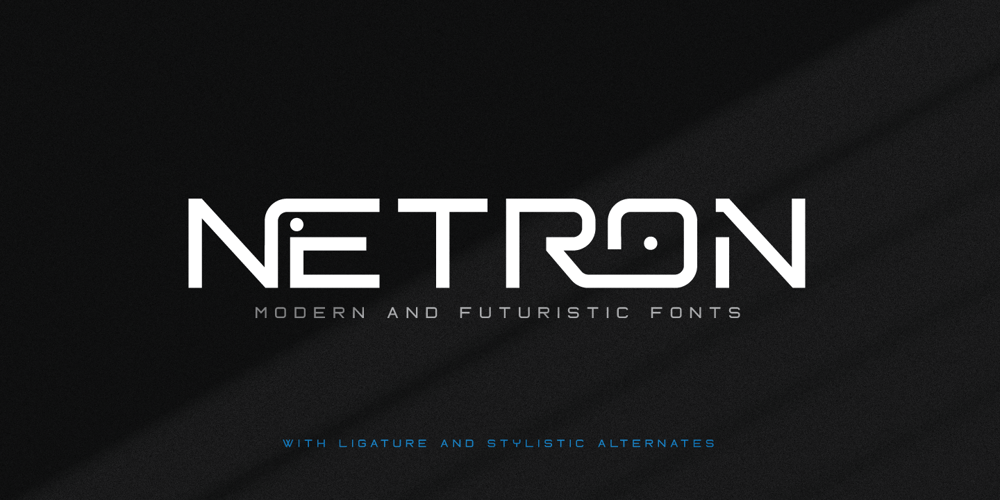
Netron Font Family was designed by Ari Juanda and published by Linecreative. Netron contains 1 styles and family package options. Netron is a futuristic typeface, designed with minimal lines to keep it simple and artistic. It gives your texts modern smart effects. This font is equipped with ligature and alternative letters will work very well for posters, logotypes, magazines, covers, banners, t-shirts and headers, or even large-scale artwork.